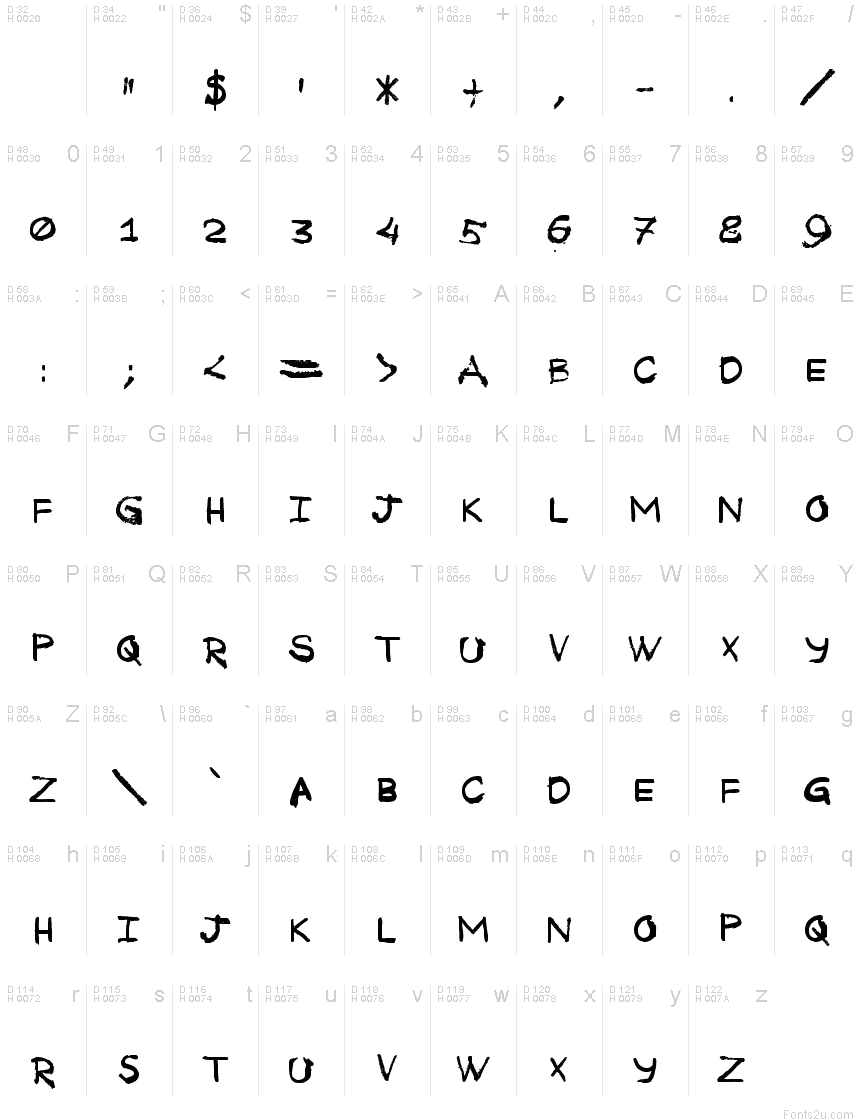
Tkachenko Sketch 4F Bold by Sergiy S. Tkachenko of 4th February is a free brush display font with blunt, hand-painted strokes. Uneven edges, shifting widths, and loosely formed capitals give the lettering the quick look of marks made directly with a loaded brush.
The rough immediacy suits music posters and streetwear graphics, but it can also lend food packaging a credible handmade quality. In cafe branding, the irregular letterforms can become a recognizable part of the product identity.